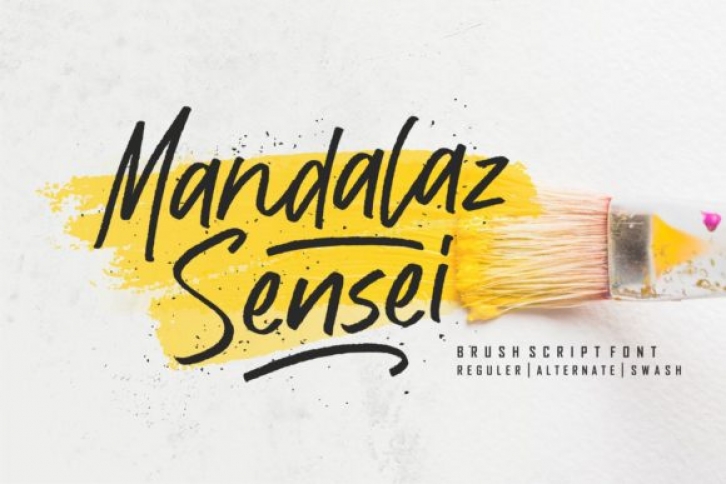
Mandalaz Sensei is a brushed and urban styled handwritten font. This font reads as strong, confident, and dynamic and can add tons of nostalgic character to your designs.